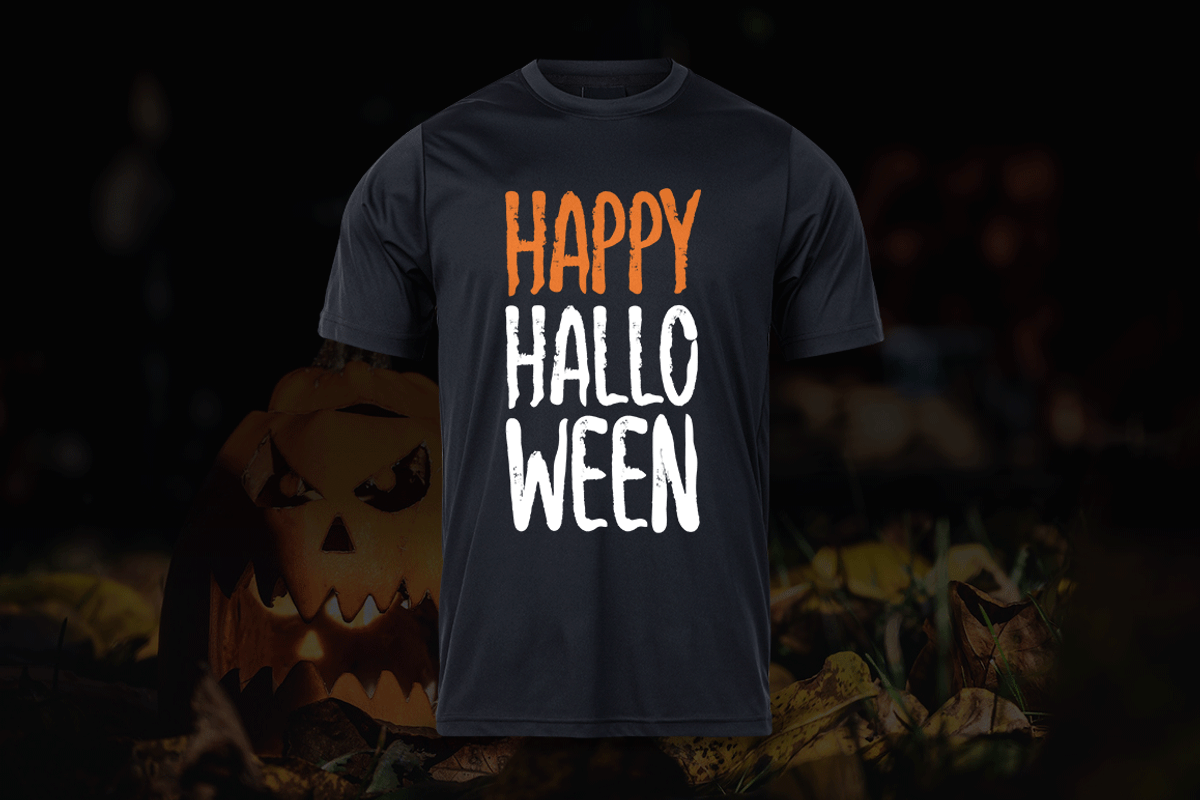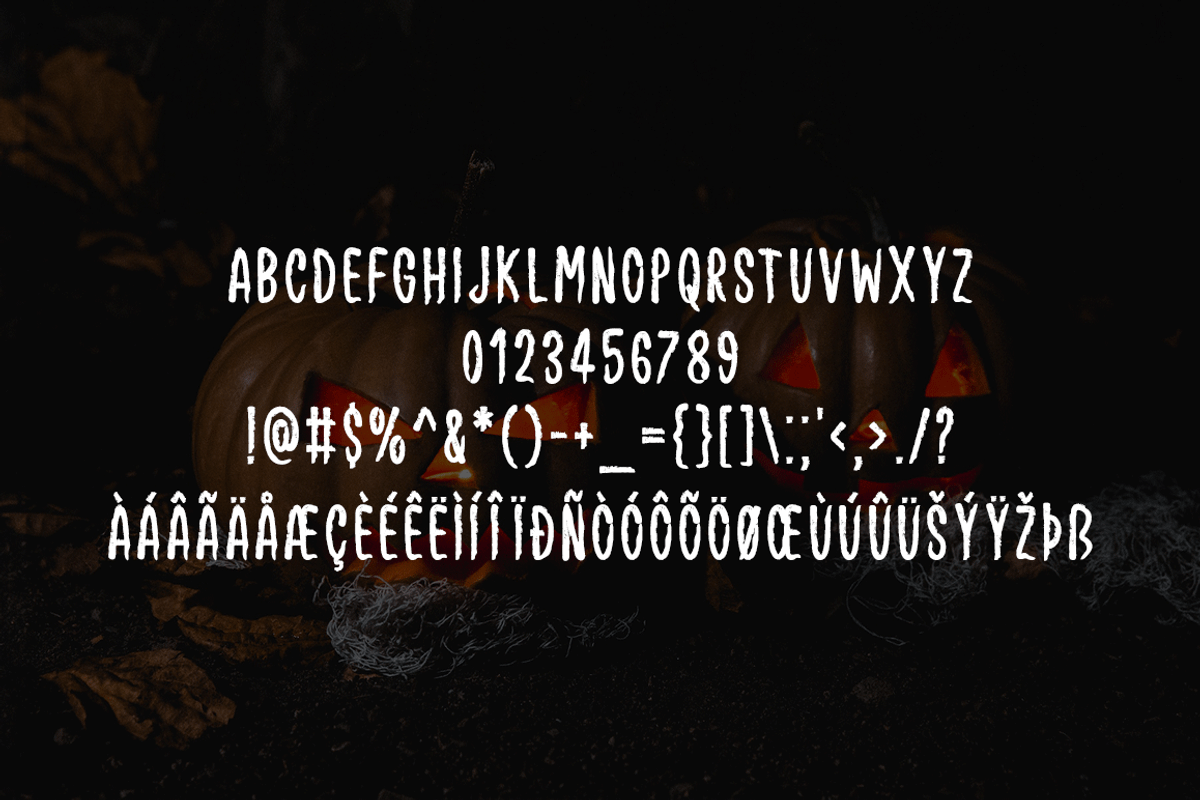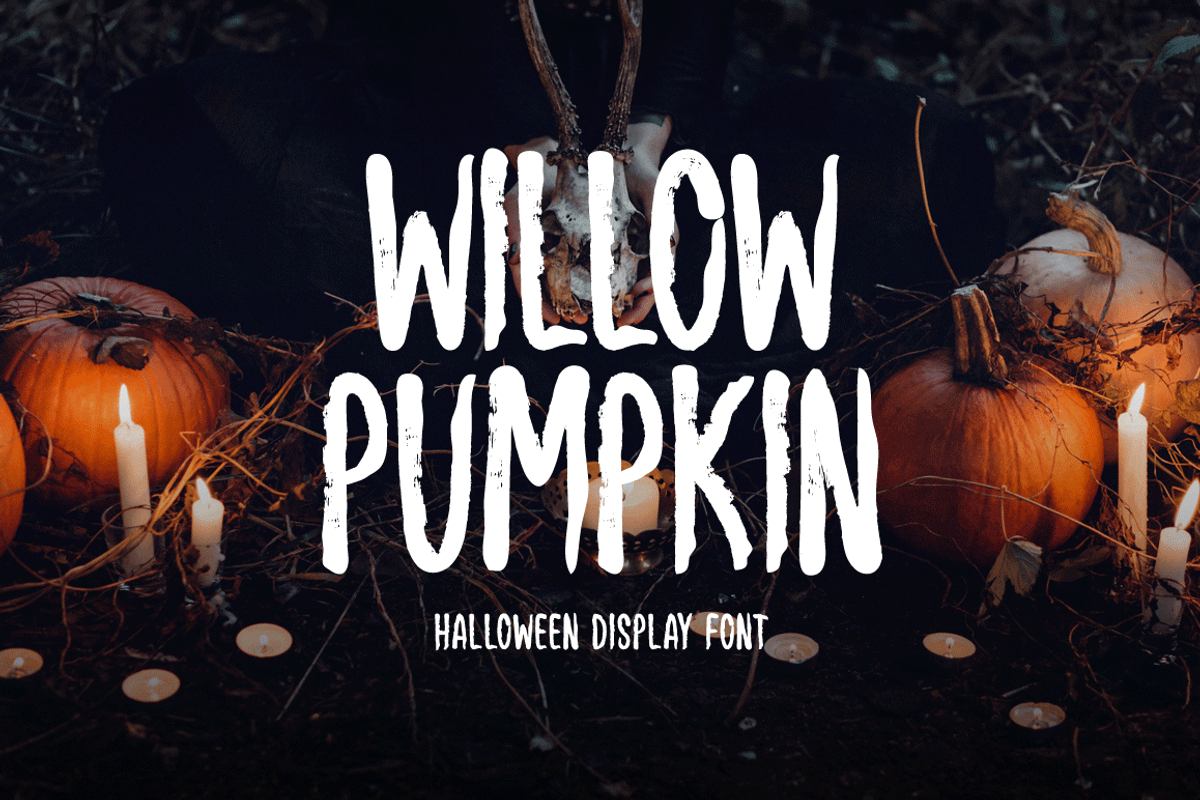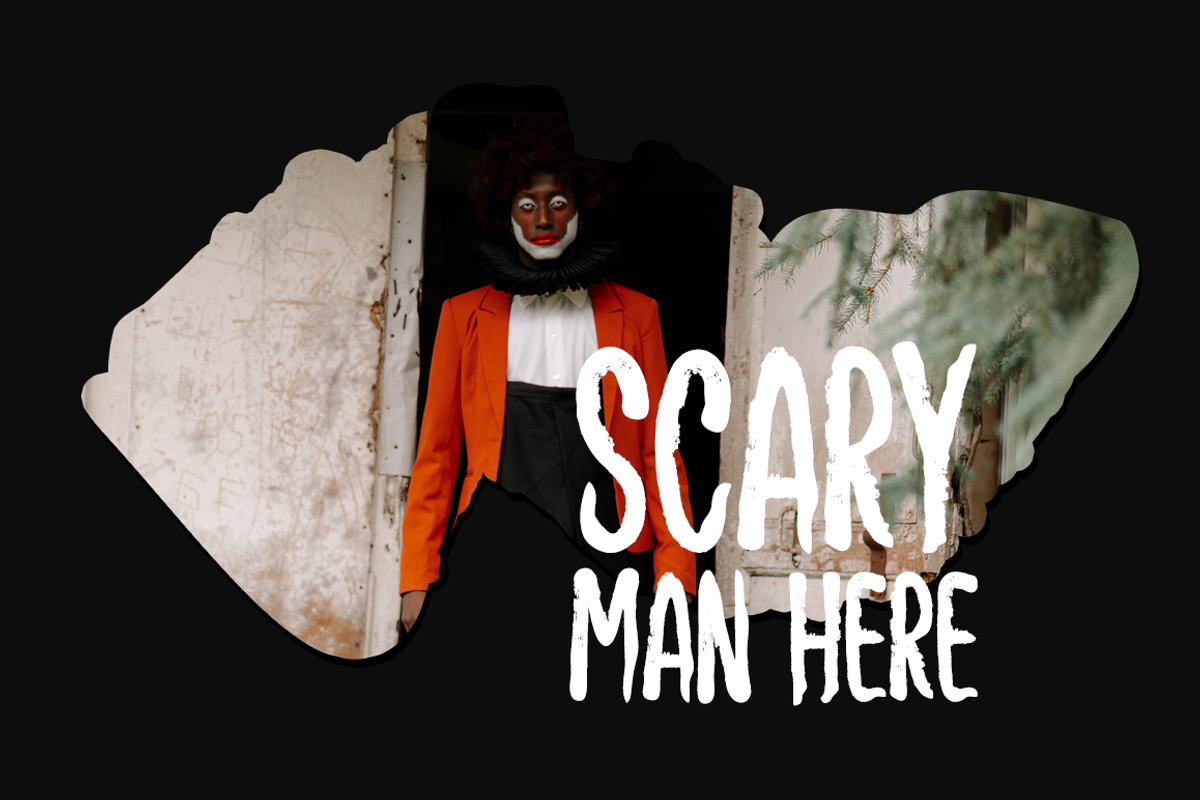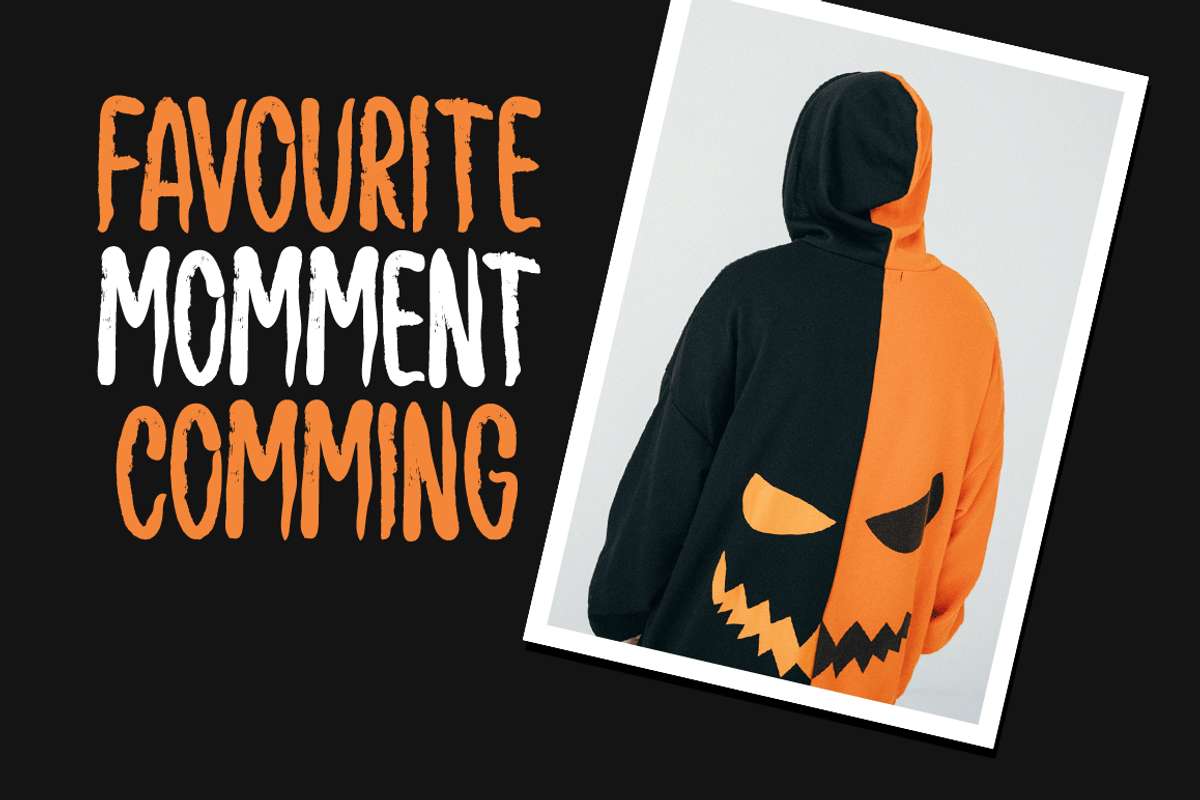
Willow Pumpkin Typeface
Introducing Willow Pumpkin!
Willow Pumpkin is a casual and creepy-looking display font. It is perfectly suitable for any Halloween-related project or crafty idea! The only limit is your imagination.
Includes a range of multilingual support